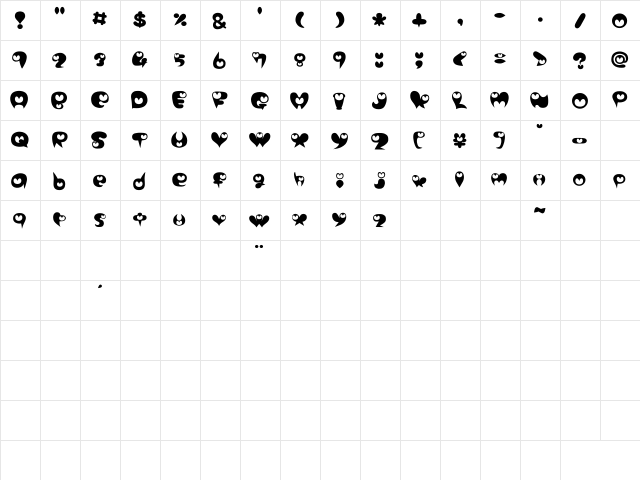
purimonyorori2 Regular
Design Context for purimonyorori2 Typeface
purimonyorori2 is a composed and adaptable typeface that performs quietly and consistently across a wide range of design contexts.